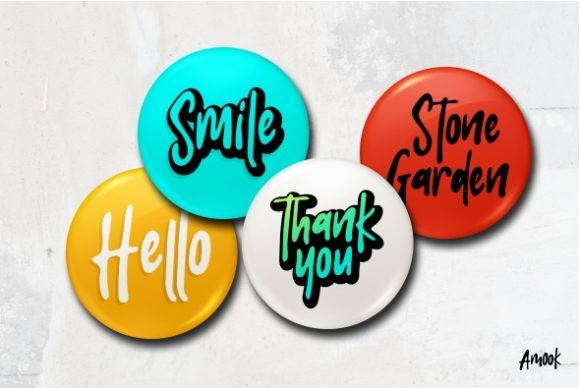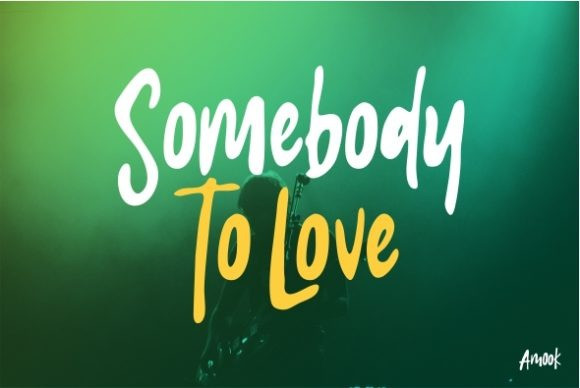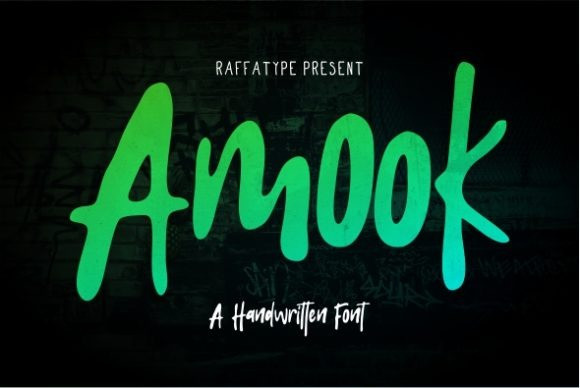
Amook Font
Amook Display Font is a cute and quirky display font. It will add an incredibly joyful touch to your designs. Add this beautiful display font to each of your creative ideas and notice how it makes them stand out!